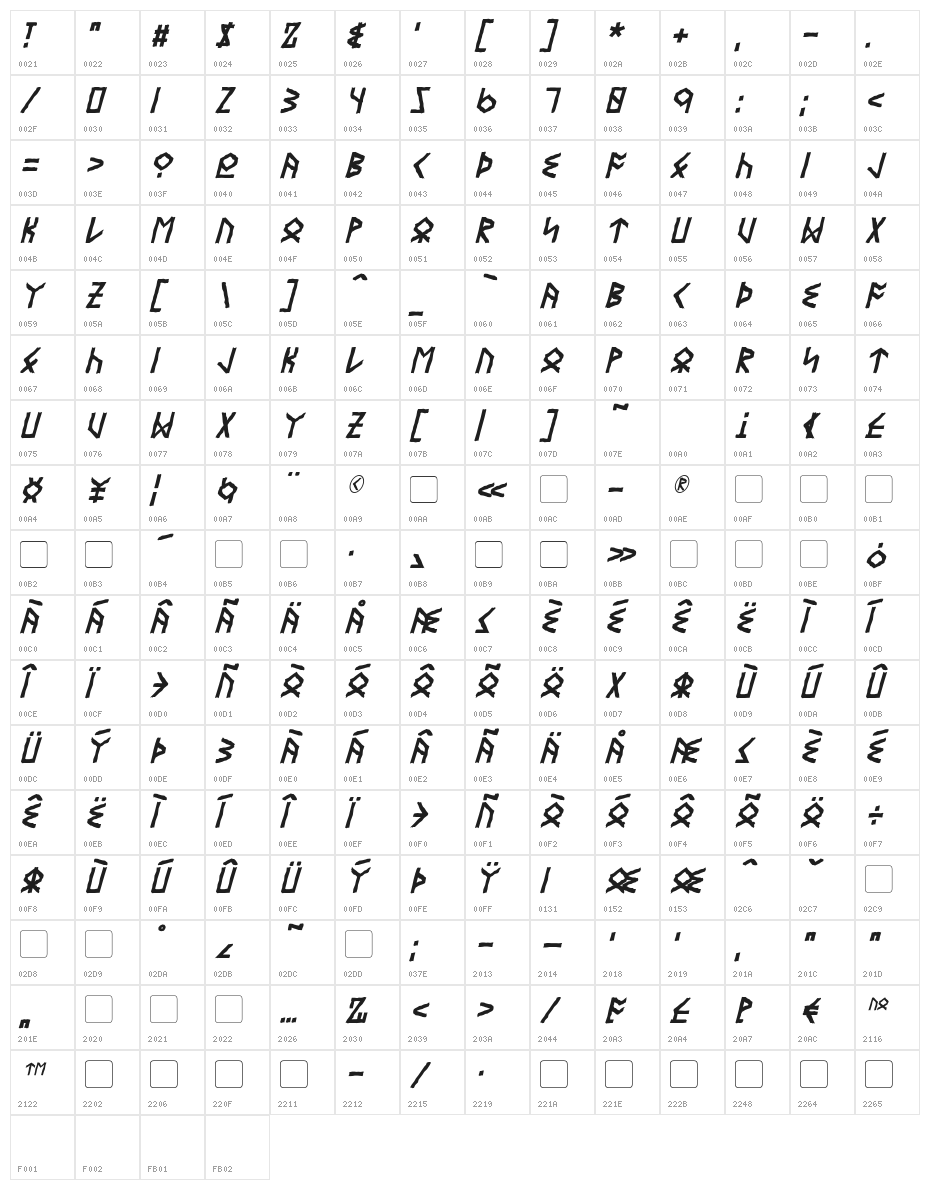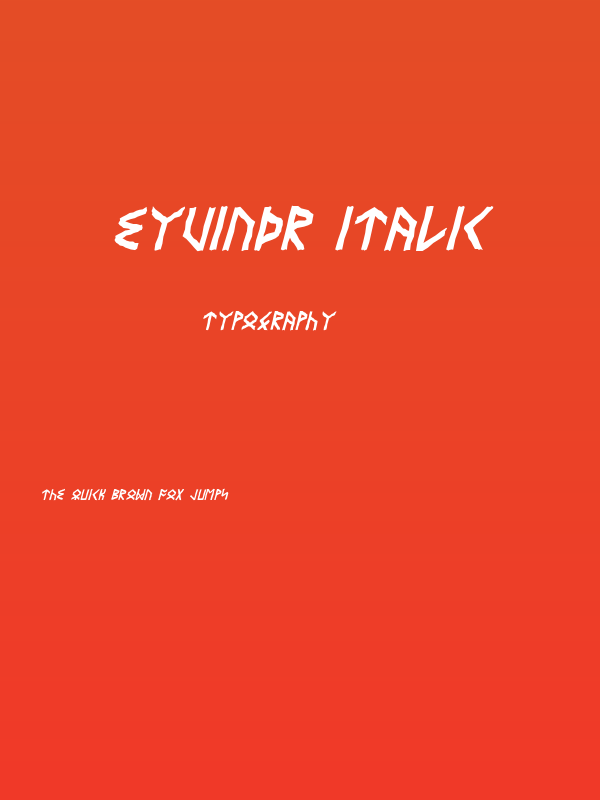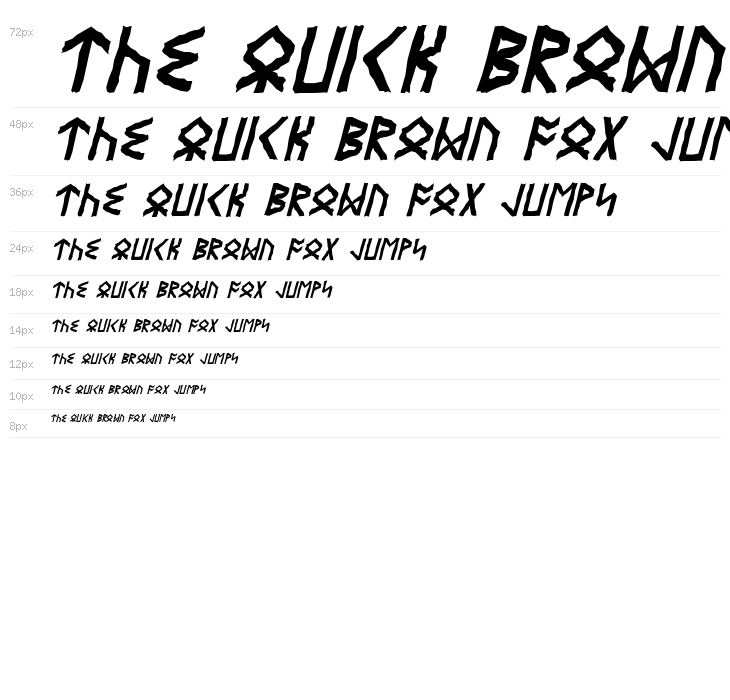
Eyvindr Italic Font
Eyvindr Italic Description
This font features a bold and angular design, characterized by sharp, jagged edges and a dynamic, italicized slant. The letters exhibit a unique, almost rune-like appearance, giving it a distinct and edgy style. The uppercase and lowercase letters maintain a consistent theme, with exaggerated angles and a slightly condensed form. Numbers and special characters follow the same aesthetic, ensuring a cohesive look across all glyphs. The font's aggressive and modern feel makes it stand out, suitable for projects that require a strong visual impact.
| Proposed Projects | Ideal for video game titles, movie posters, branding for extreme sports, or any project needing a bold, impactful typeface. |